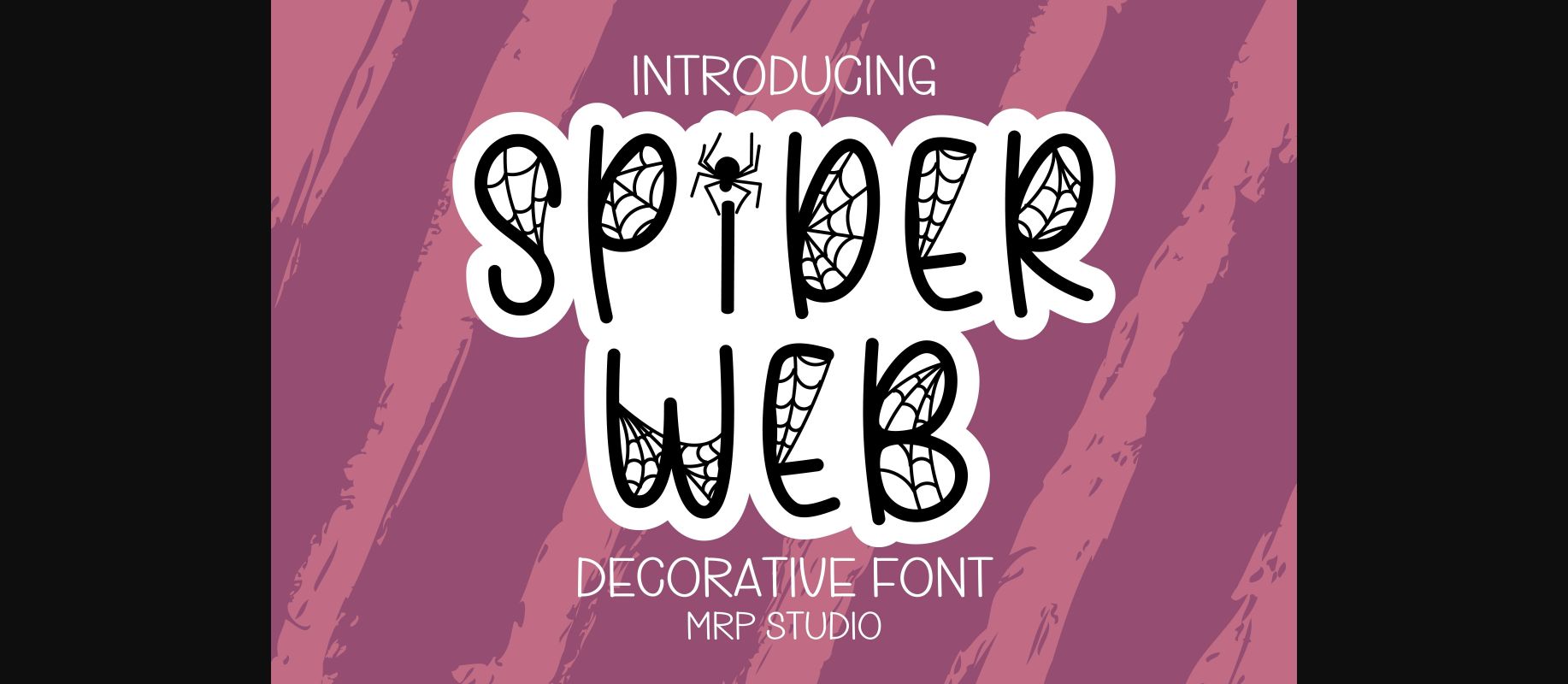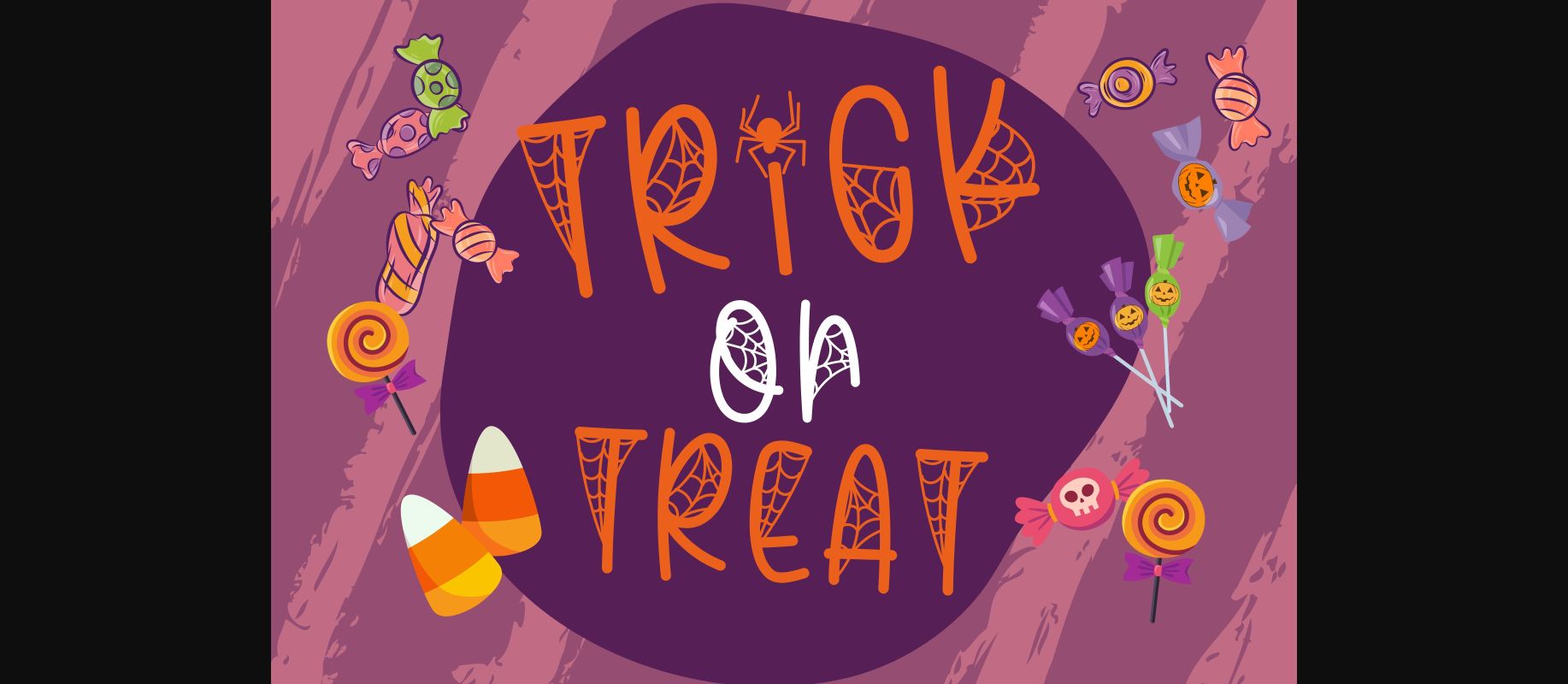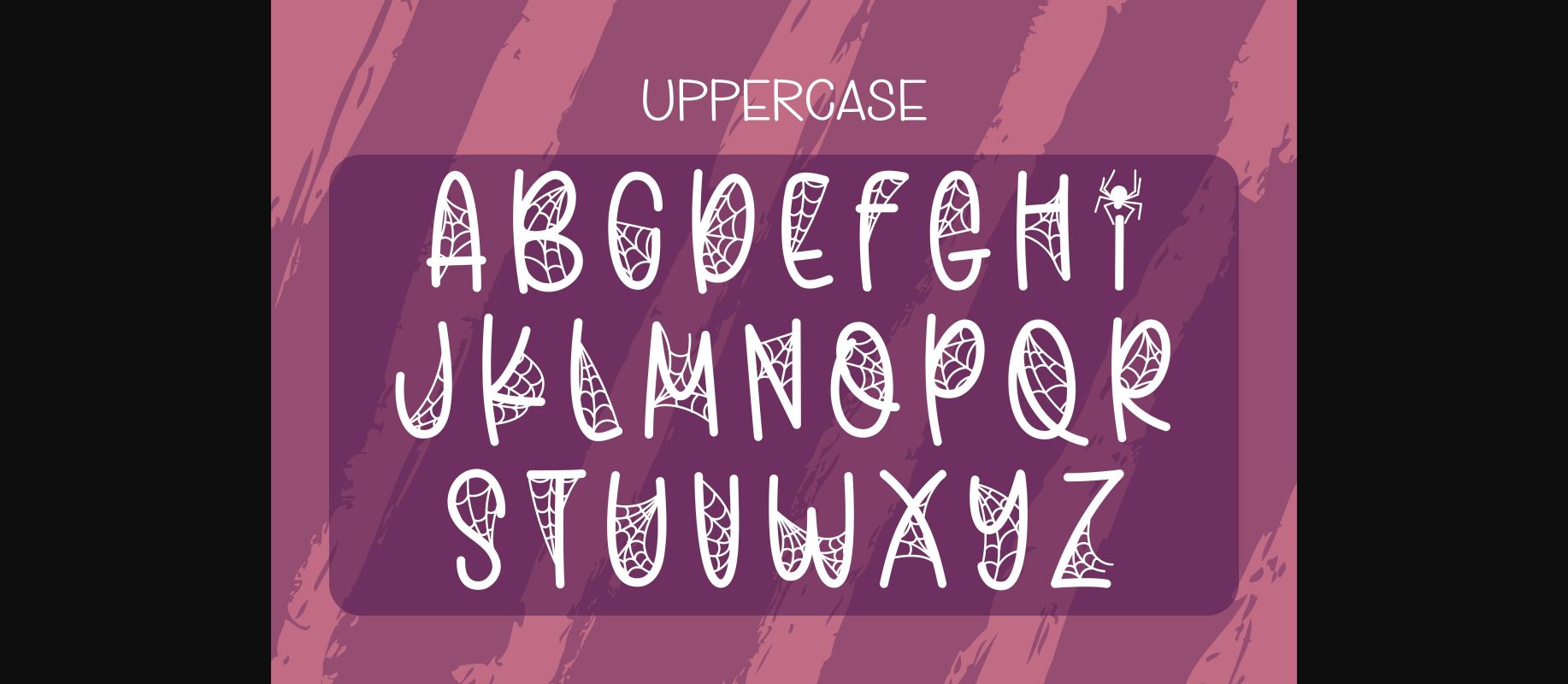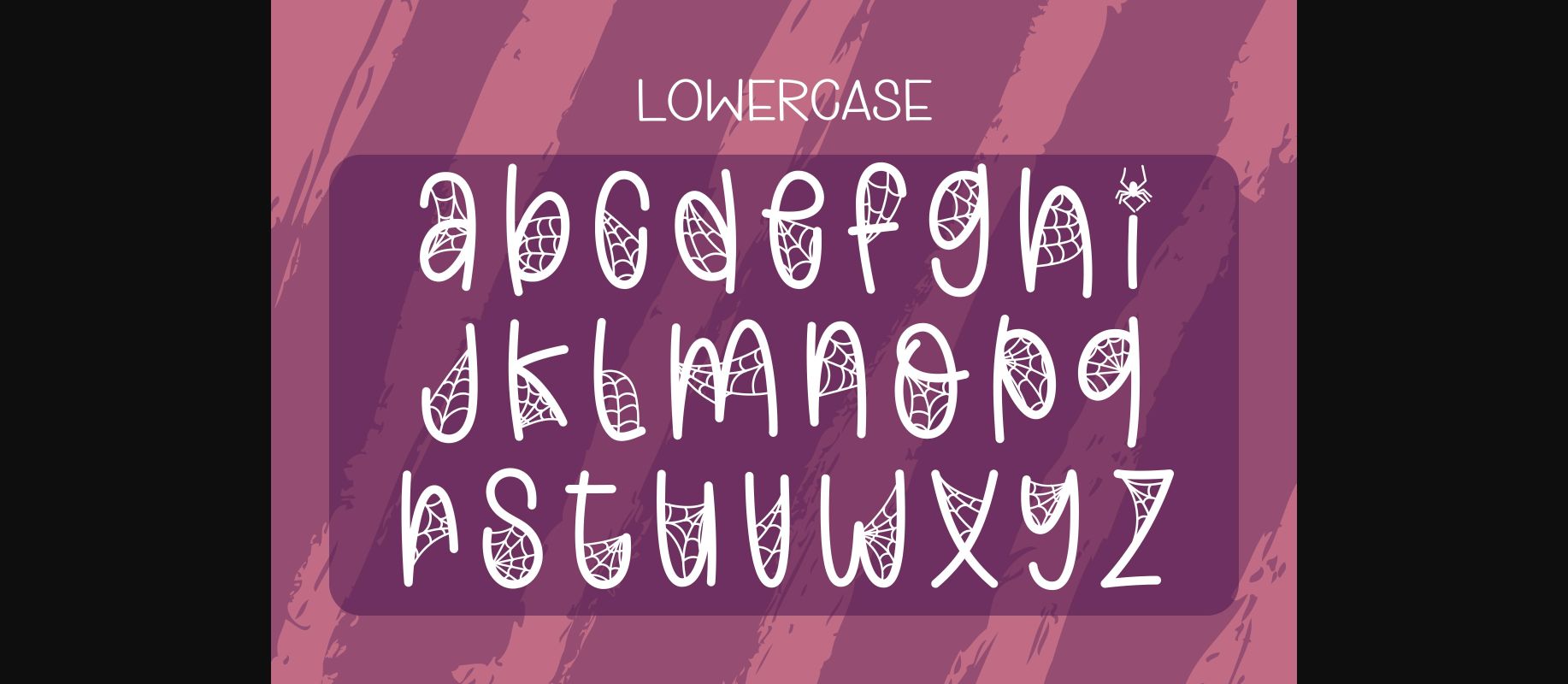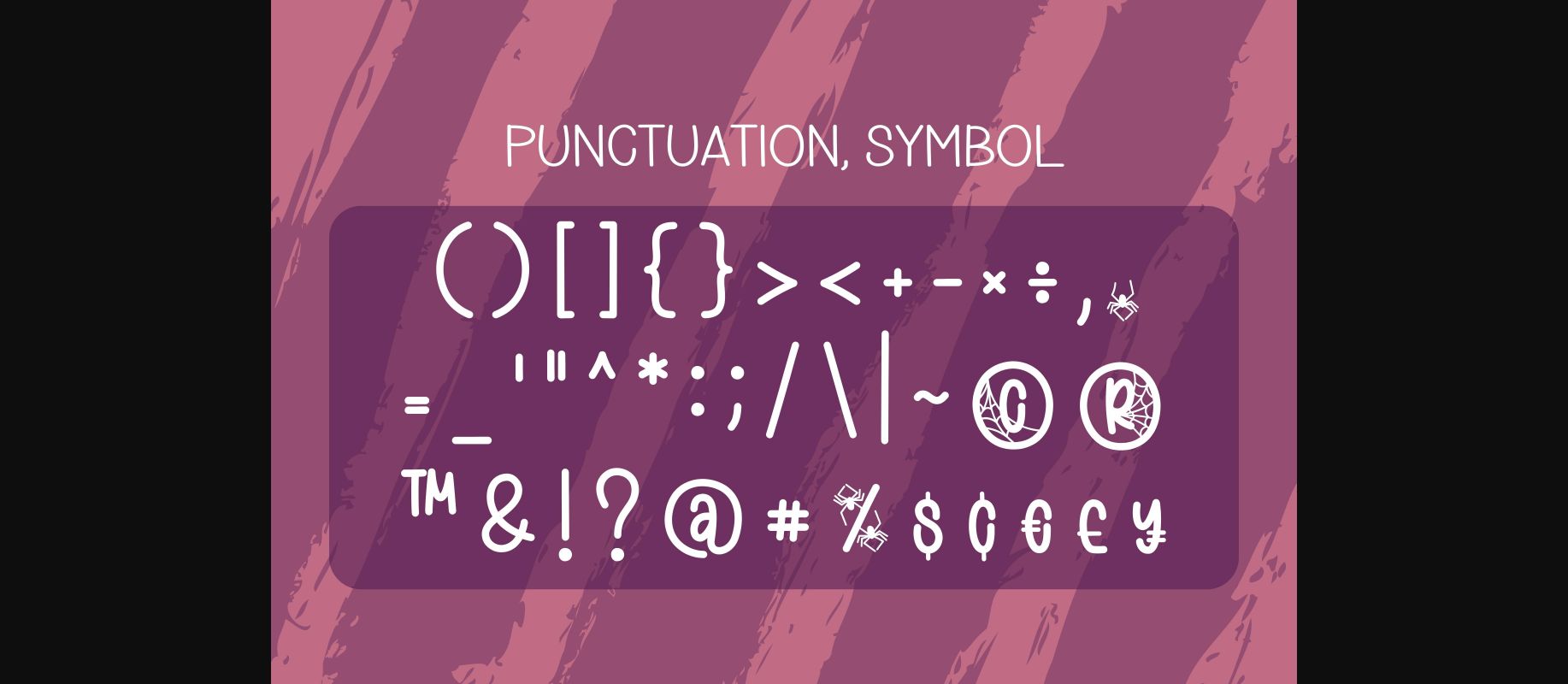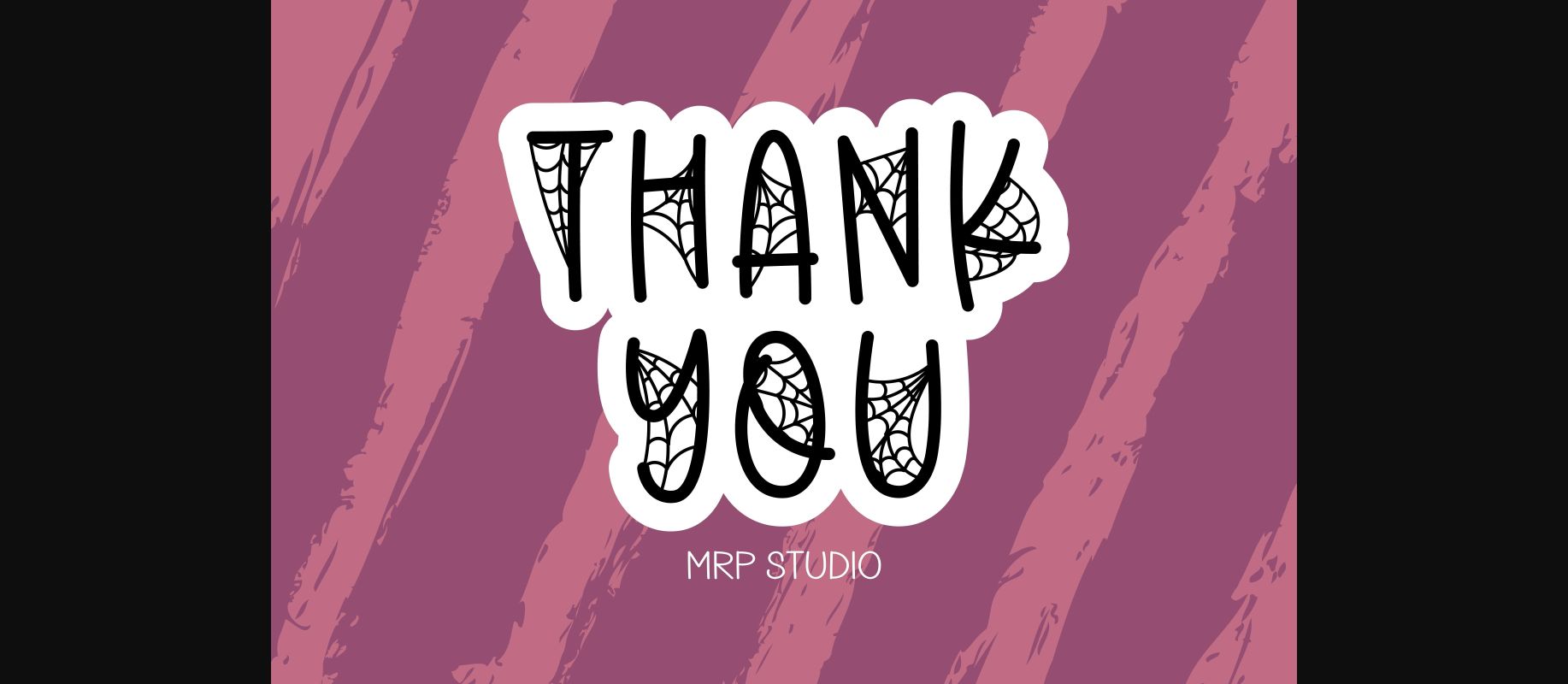
Spider Web Font
About Spider Web Font
Spider Web is designed in a spooky and adorable decorative font style. It would be awesome to your lovely Project and also your child-related project such as back to school, Halloween party decoration and much more to any topic which need bright and fun touch. Let’s try it and add it to your creative ideas and notice how it makes them stand out!